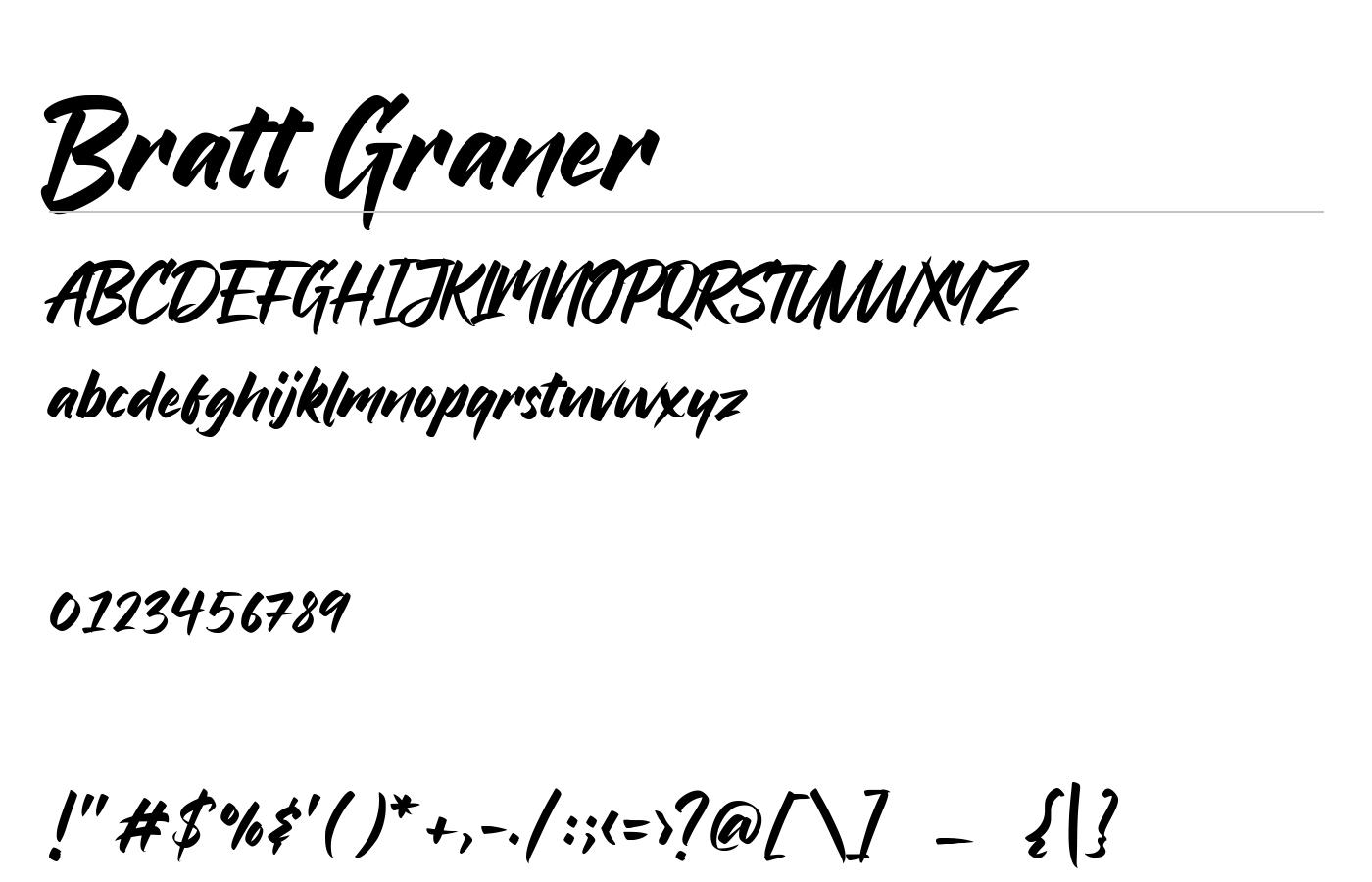
Bratt Graner is a lively and bold script font with a hand-painted feel, featuring dynamic strokes that vary from thick to thin to create a natural, expressive flow. Its slightly condensed letterforms and upright italics lend it an energetic yet controlled style, making it perfect for eye-catching headlines, logos, and branding that aim to convey creativity and personality. This font works well in designs needing a touch of spirited elegance without losing readability.
Bratt Graner Font
About Bratt Graner Font
| Font family | Bratt Graner Font |
| Designer | Balpirick 2020 |